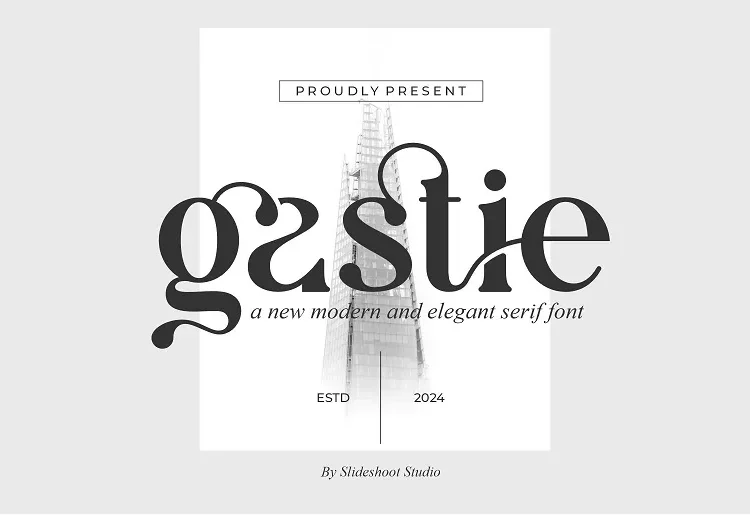
Gastie Font
Gastie Font is a new, elegant serif typeface that is perfect for a variety of branding and logo purposes. With its refined and modern design, Gastie brings sophistication to any project, making it ideal for invitation card designs, logos, movie titles, business cards, book titles, brand names, and more.
Whether you’re working on professional branding or creative designs, Gastie Font offers a timeless appeal that enhances the overall aesthetic of your work, making it stand out with elegance and style.